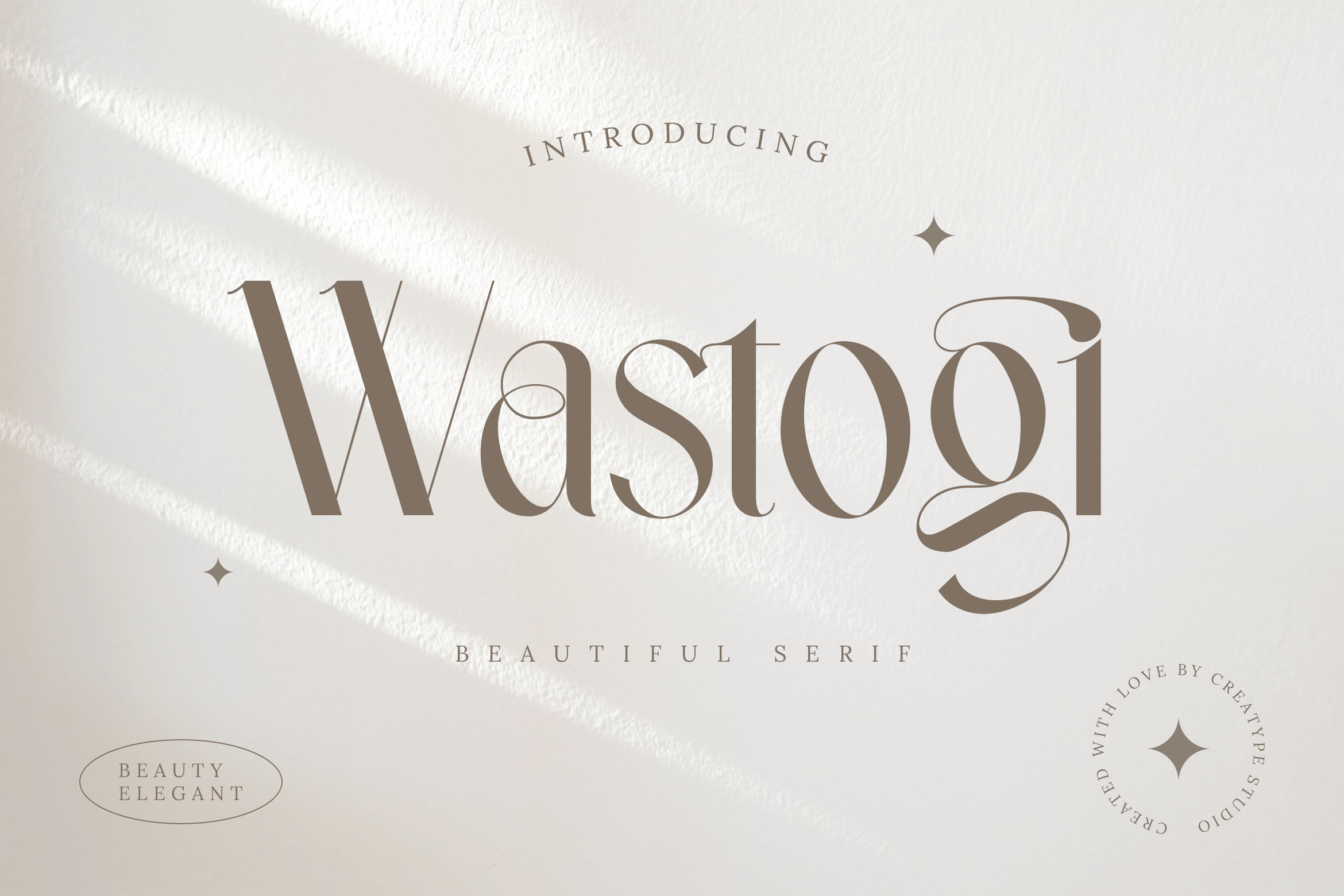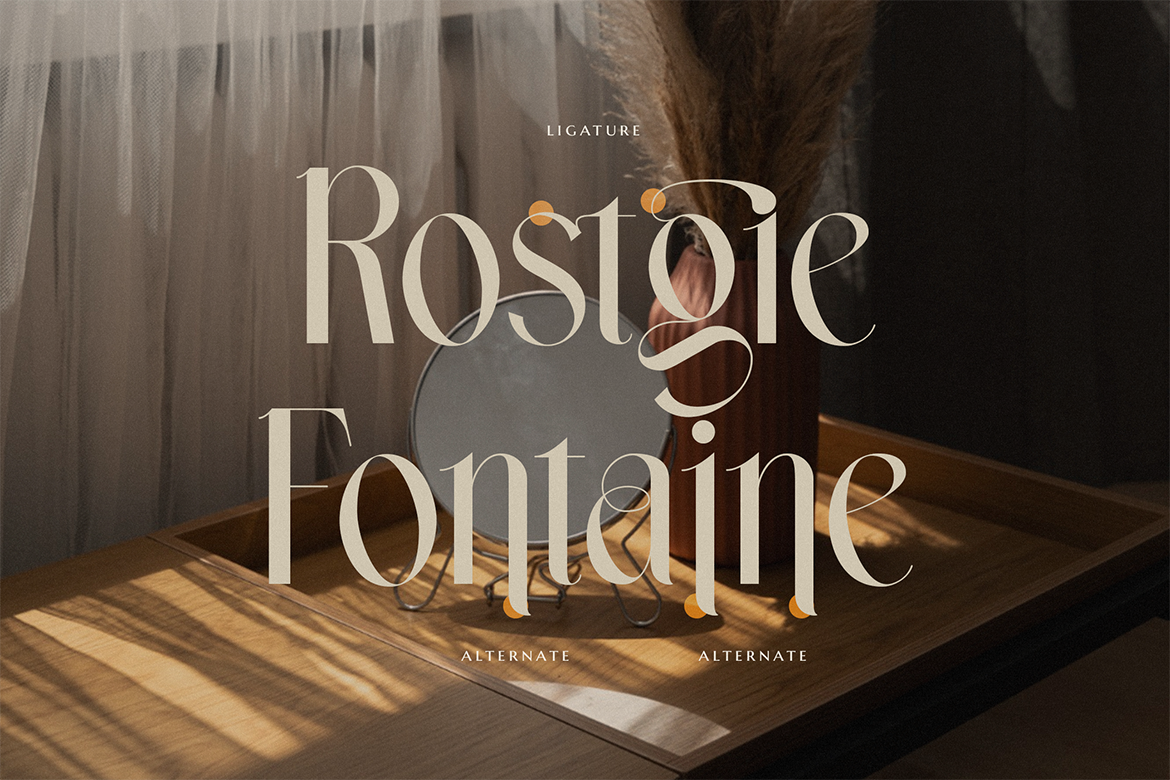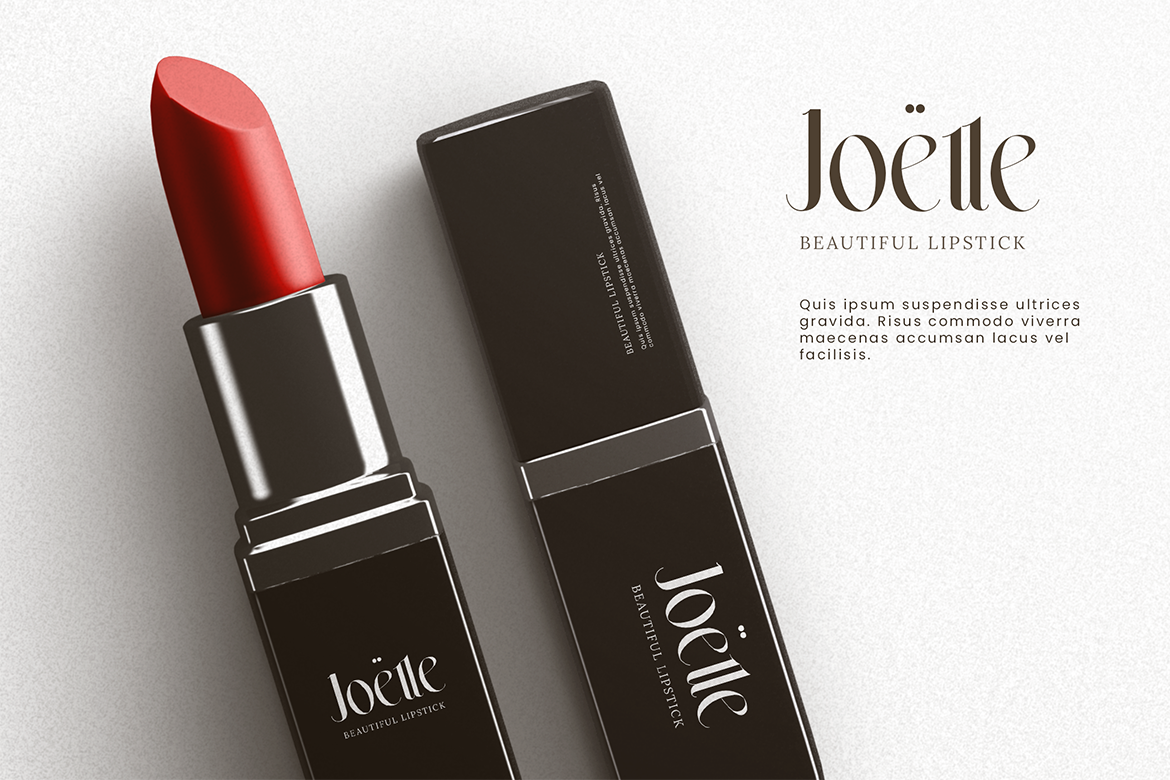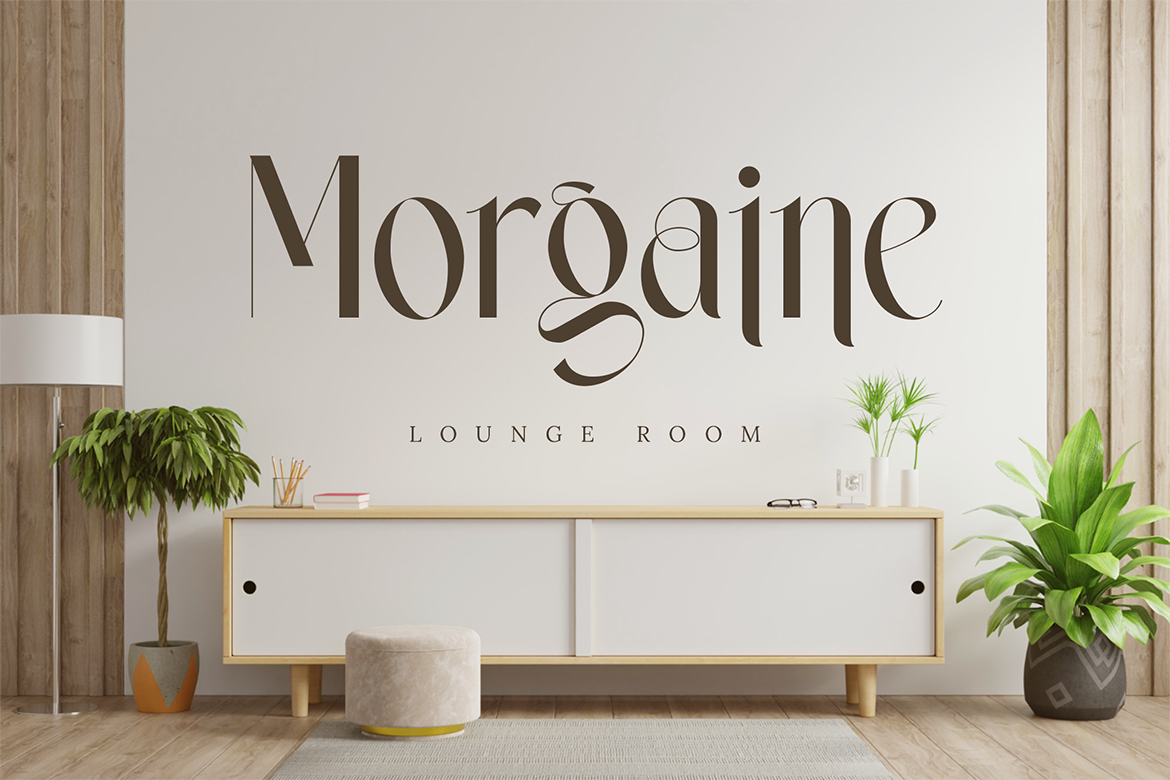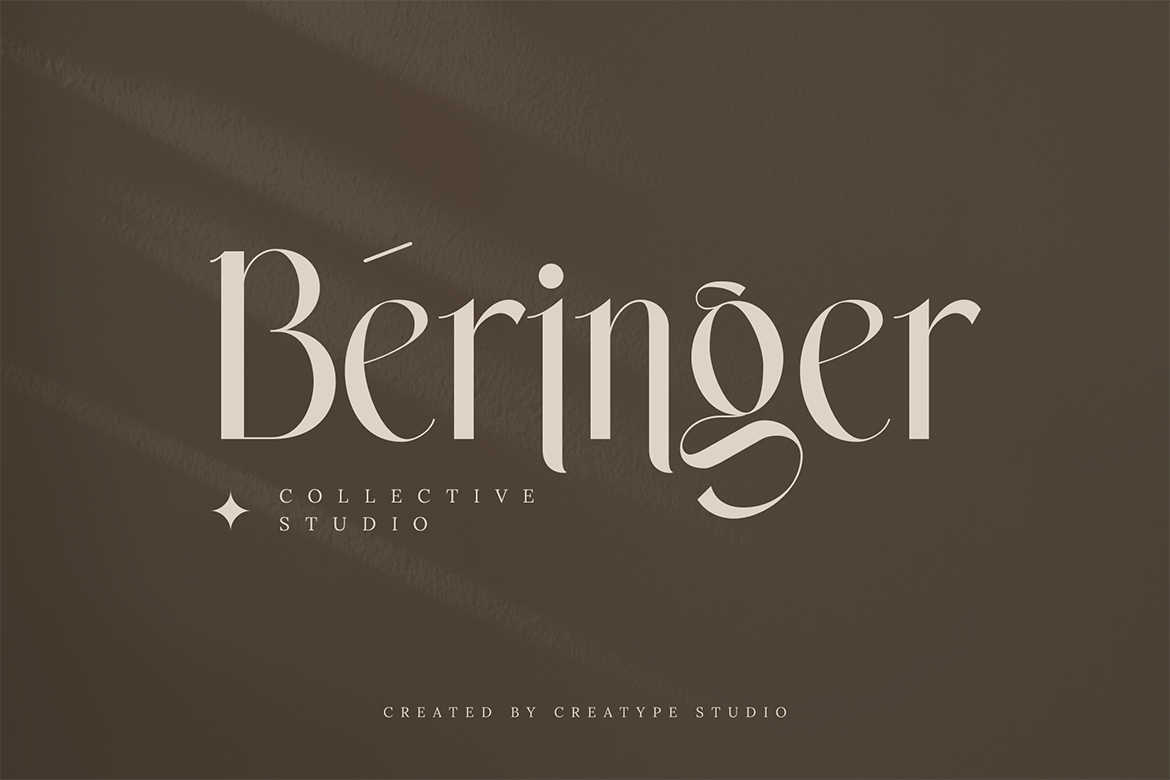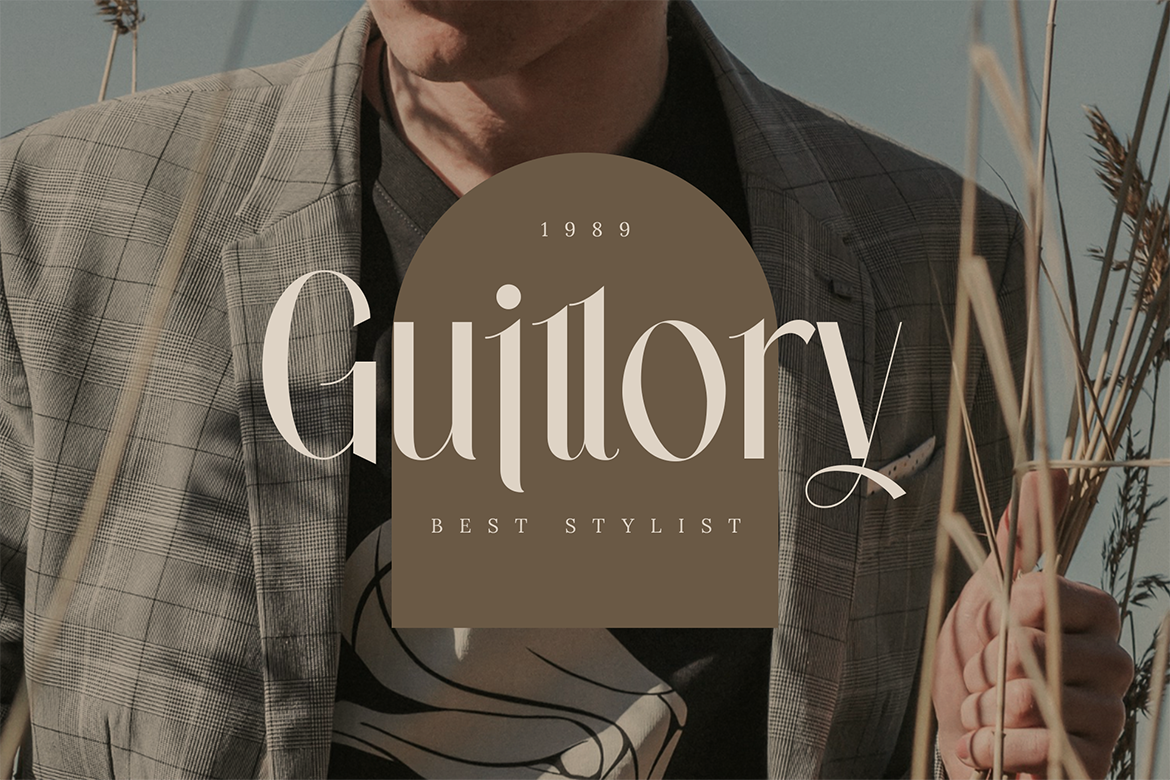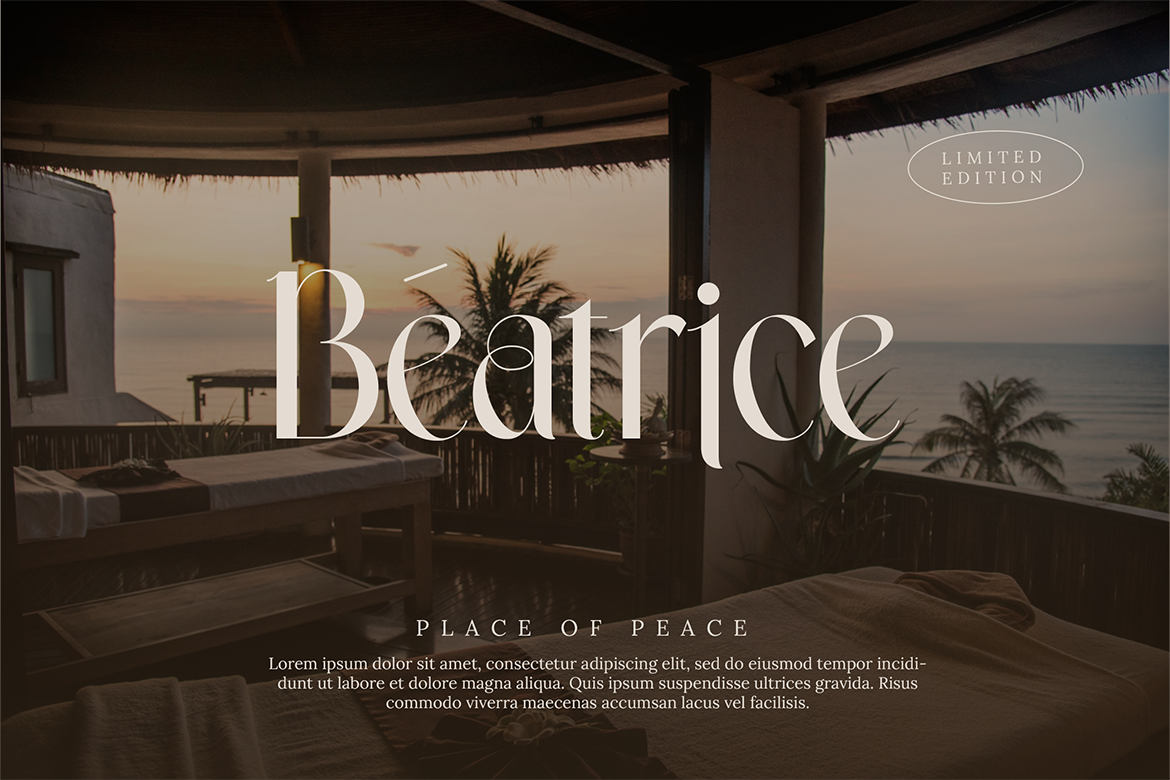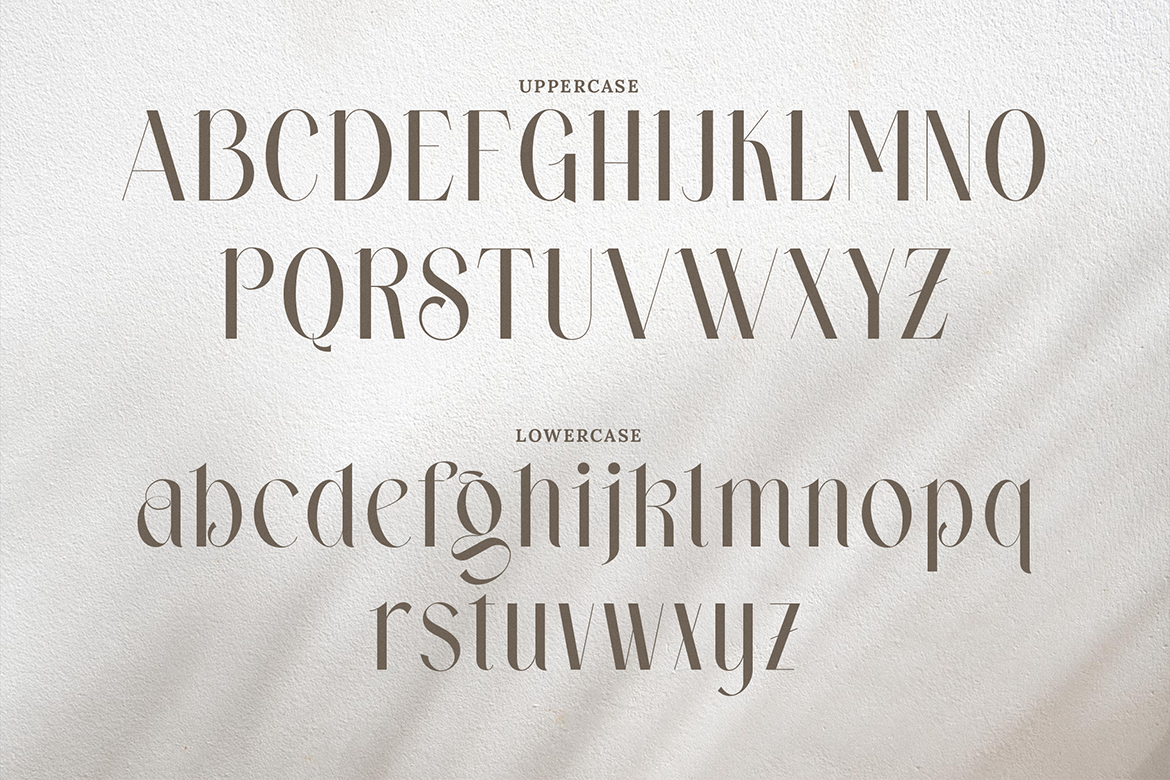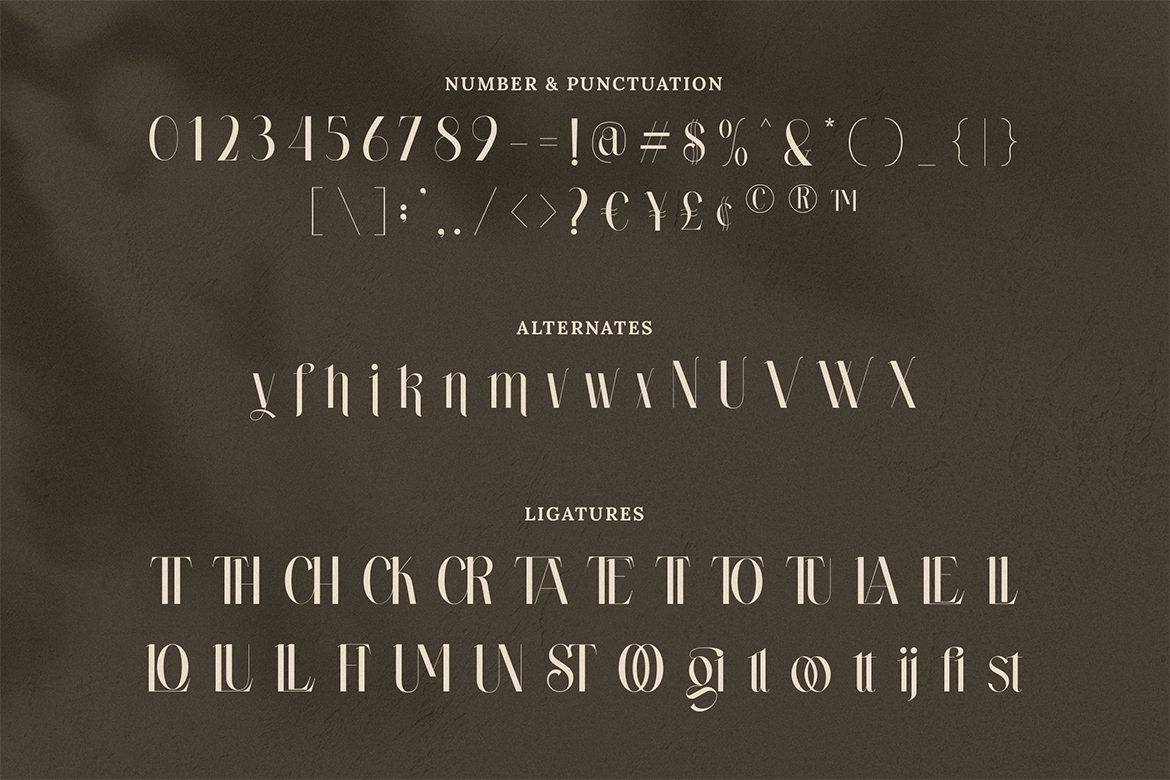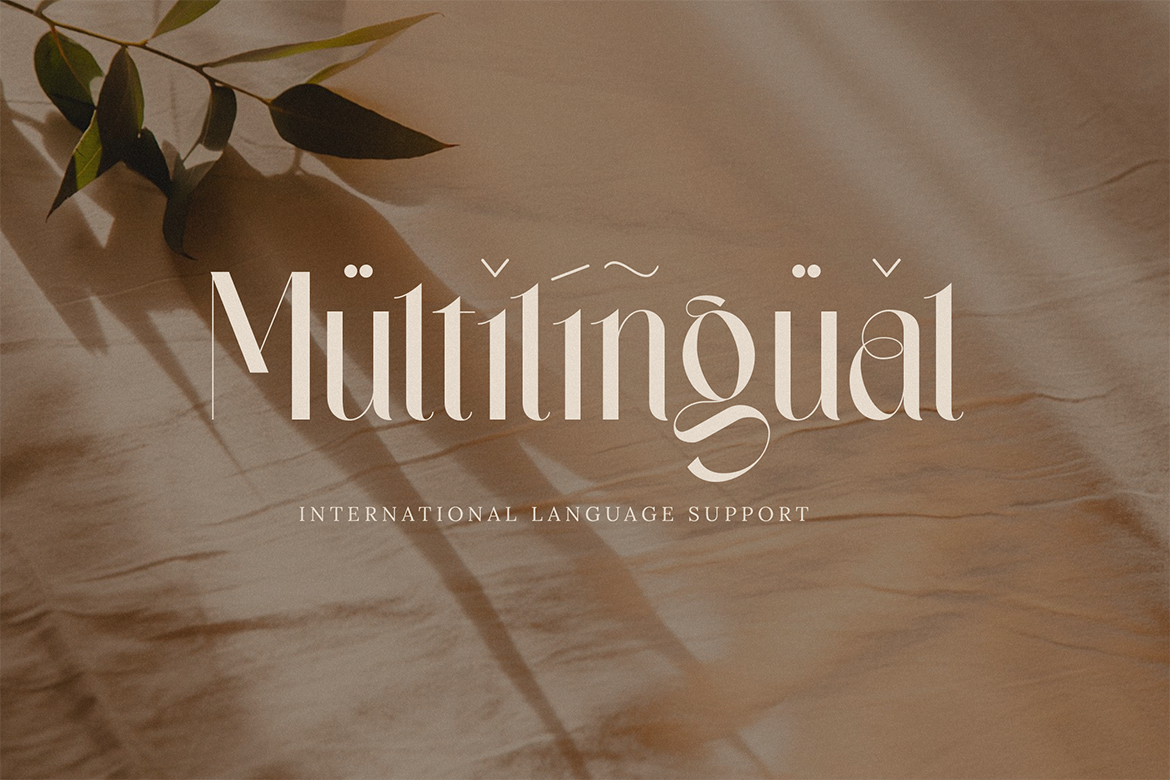
Wastogi Beautiful Serif
Wastogi, a beautiful serif typeface, gives unique details to make an elegant and contemporary typeface.
Wastogi is perfect for branding projects, logos, wedding designs, social media posts, advertisements, product packaging, product designs, label, photography, watermark, invitation, stationery, and any projects that need handwriting taste.
• Ligature & Alternate